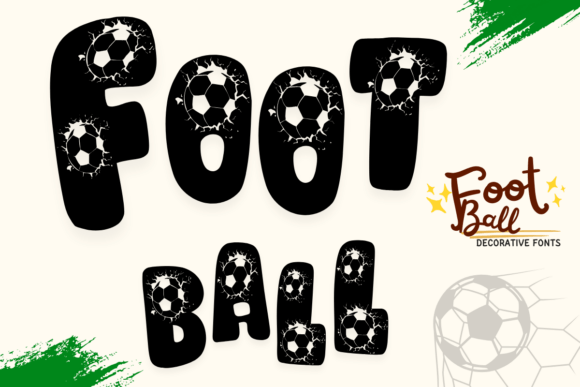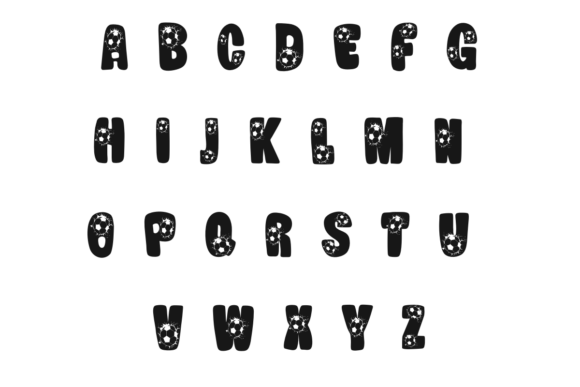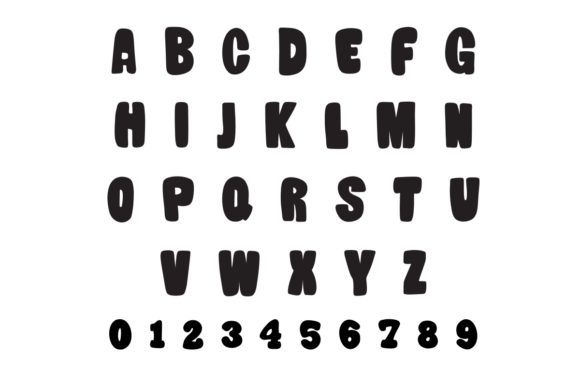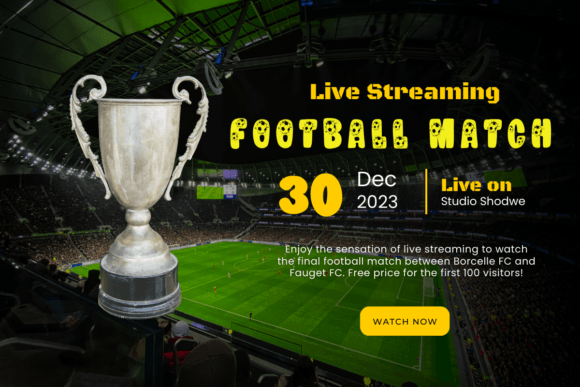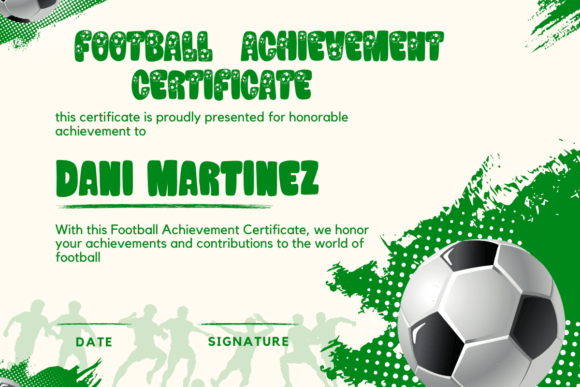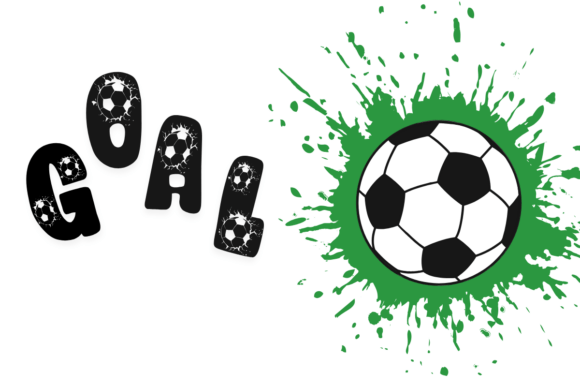
Get Ready to Kick Off Your Creativity with Football Font
Have you ever found yourself in the middle of a creative project, and suddenly, a spark of inspiration hits you? You see a blank page, and all you can think of is the perfect font to bring your idea to life. For many designers, that spark often leads to the Football Font. This charming, decorative font is more than just a pretty face; it’s a versatile tool for adding a touch of personality to your work.
Whether you’re taking notes, writing a diary entry, or designing a greeting card, Football Font is the perfect companion. Its playful, handwritten style makes it an instant hit with designers looking to add a human touch to their projects. And the best part? Its applications are endless, from banners and social media posts to mugs and shirts.
Key Features of Football Font
- Unique Characteristics: Football Font features a bold, dynamic design that mimics the energy and excitement of the sport, with distinctive letterforms and ligatures.
- Font Style Variations: The font family includes multiple styles, including Regular, Bold, Italic, and Bold Italic, to cater to various design needs.
Review of Football Font
Overall, I’d say Football Font is a solid choice for designers looking to create a sports-themed project. ✨ One of its strongest features is its bold and energetic vibe, making it perfect for headlines and titles. The font’s unique letterforms and rounded edges give it a fun, approachable feel that’s hard to resist. ✨ The font also comes with a range of variations, including different weights and styles, which makes it easy to customize to suit your needs.
However, I do have a few concerns about Football Font’s limitations. ⚠️ One of the main issues is its readability, particularly in smaller sizes. The font’s boldness can make it difficult to read at close range, which may be a problem for designers working on projects that require a lot of text. ⚠️ Additionally, the font’s unique letterforms can sometimes make it hard to recognize certain letters, especially for people with visual impairments.
- Bold and energetic vibe
- Unique letterforms and rounded edges
- Range of variations, including different weights and styles
- Fun, approachable feel
Recommendation
Overall, I’d recommend Football Font for designers who want to create a sports-themed project with a bold and energetic vibe. However, it may not be the best choice for projects that require a lot of text or readability.
The Football Font is commonly used in sports-related designs, such as:
- Soccer or football team logos and branding.
- Event promotions and posters.
- News articles and sports journalism.